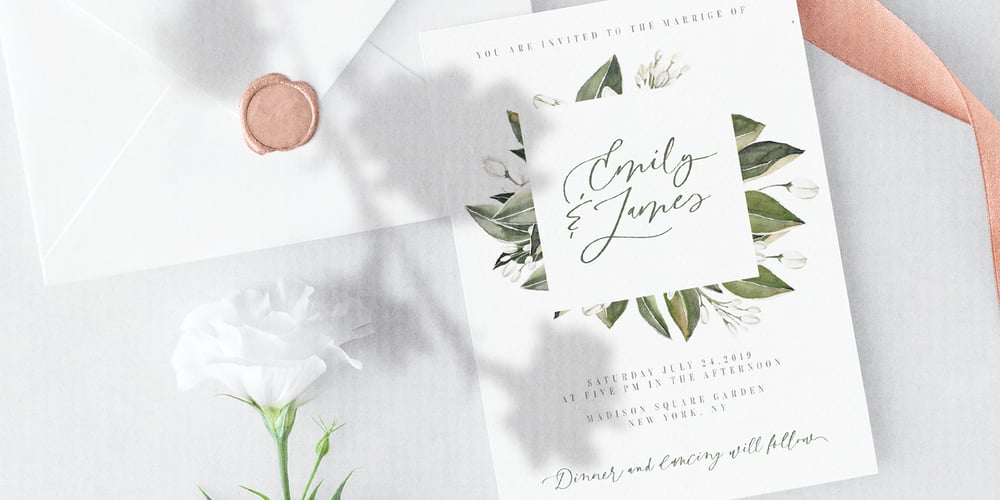
Rosematty Font Family was designed by Ivan Rosenberg and published by Ivan Rosenberg. Rosematty contains 1 styles and family package options. Rosematty is a modern calligraphy font with 99 ligatures. This font includes multilingual support for Western and Central Europe. Is ideal for blog, websites, instagram, branding, invitations, business cards, weddings and many more. Rosematty also includes 4-11 alternate characters for both uppercase and lowercase letters, beginning ending swashes for all lowercase letters and ligatures for different styles. For access to Stylistic Alternates is required software with glyphs panel like Photoshop and Illustrator. No special software is required to use Ligatures.